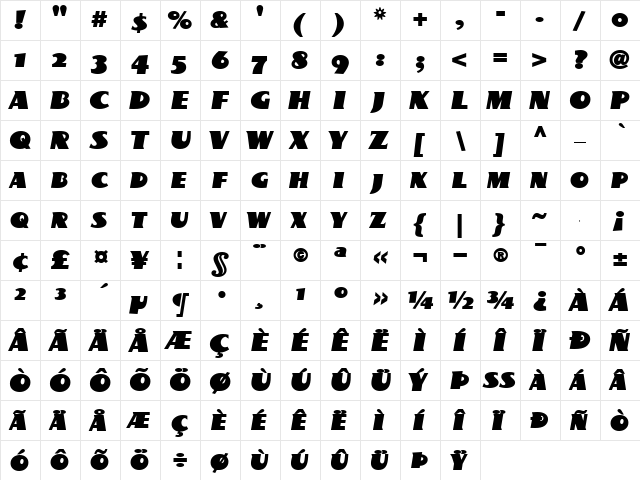
BottleKaps SC ExpItalic Regular
Design Context for BottleKaps SC ExpItalic Typeface
BottleKaps SC ExpItalic is a composed and adaptable typeface that performs quietly and consistently across a wide range of design contexts. The slanted form adds forward momentum and visual energy.
Pro Tip: Use BottleKaps SC ExpItalic for emphasis, pull quotes, and subheadings where its slanted energy can add rhythm to the layout.